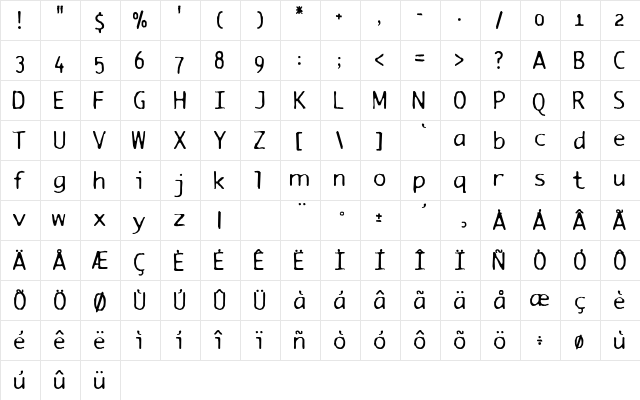
BlueWave Medium Font Preview
BlueWave Medium
BlueWave Medium Font Details
Design Context for BlueWave Typeface
BlueWave offers clean, dependable letterforms without strong stylistic allegiance, making it a practical choice for designers who need flexibility.